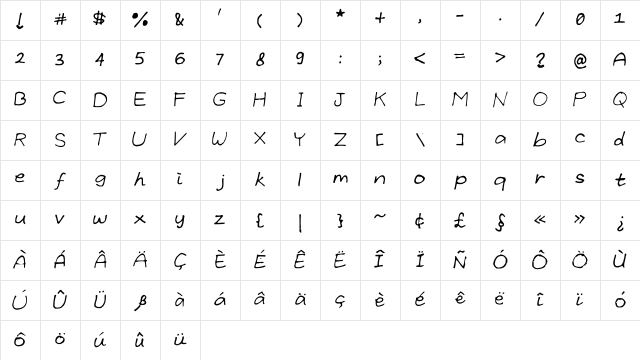
GrundlegendeByCindyyo Medium Free Font
GrundlegendeByCindyyo Medium
Design Context for GrundlegendeByCindyyo
GrundlegendeByCindyyo is a composed and adaptable typeface that performs quietly and consistently across a wide range of design contexts.
Pro Tip: Use GrundlegendeByCindyyo in both headline and body roles to test its range before committing to a single application.